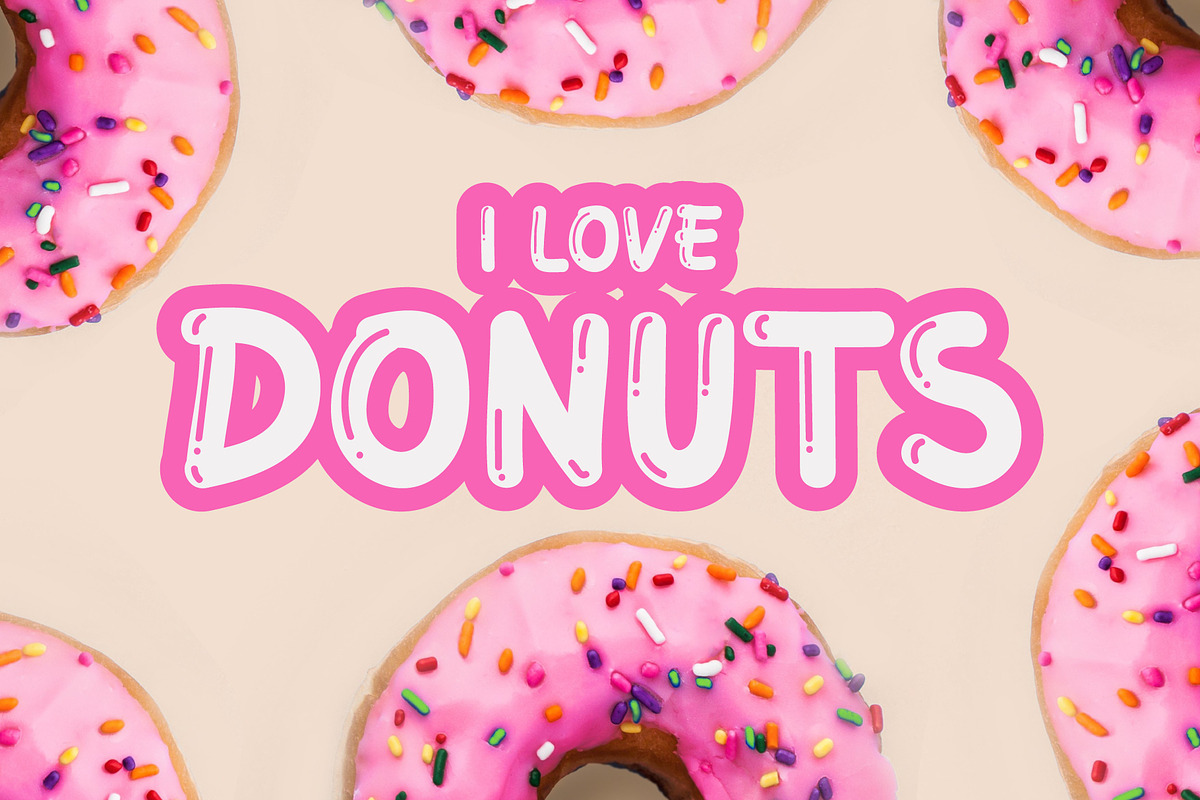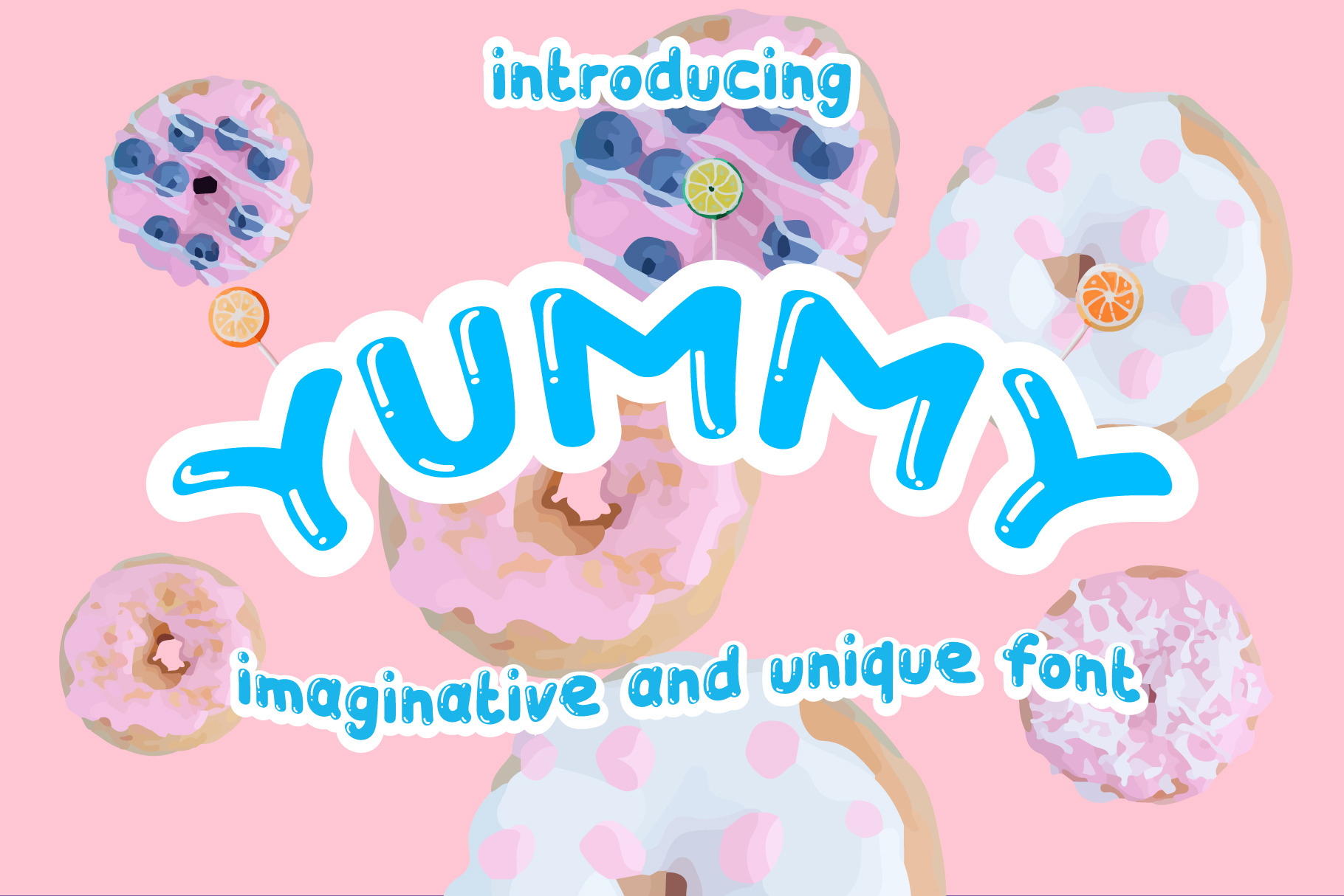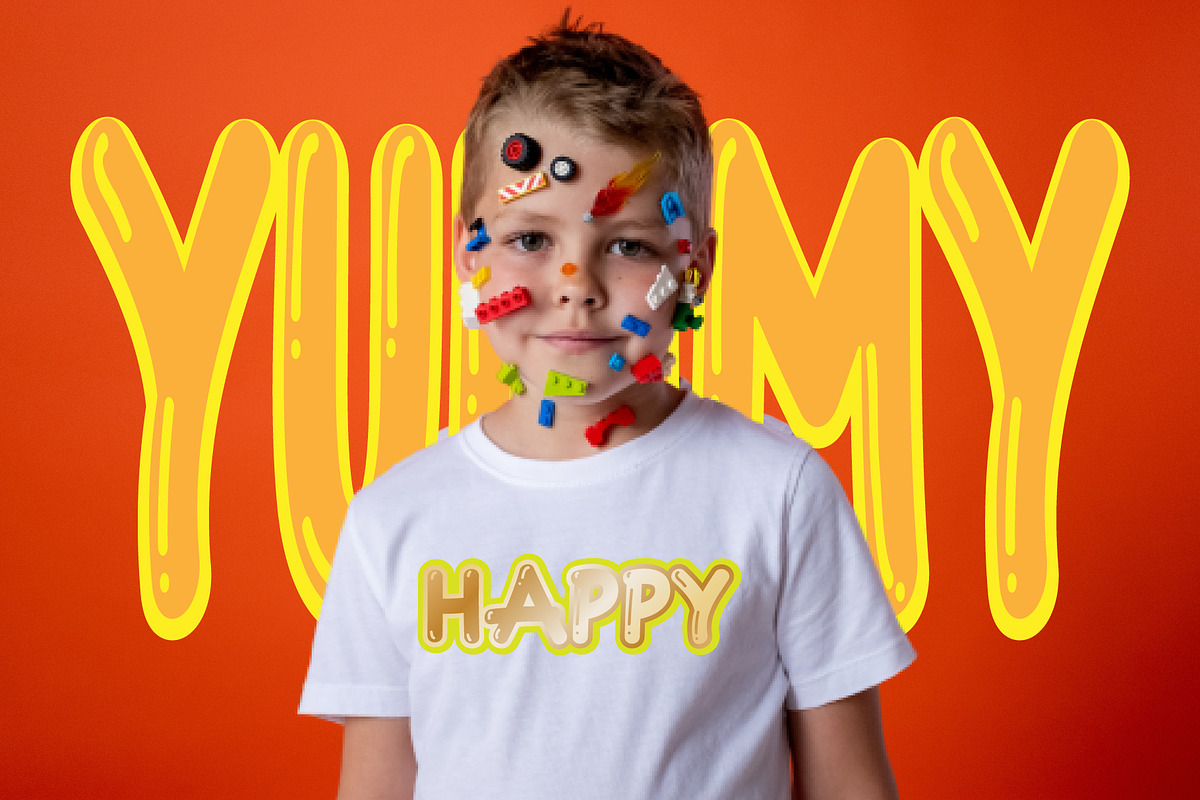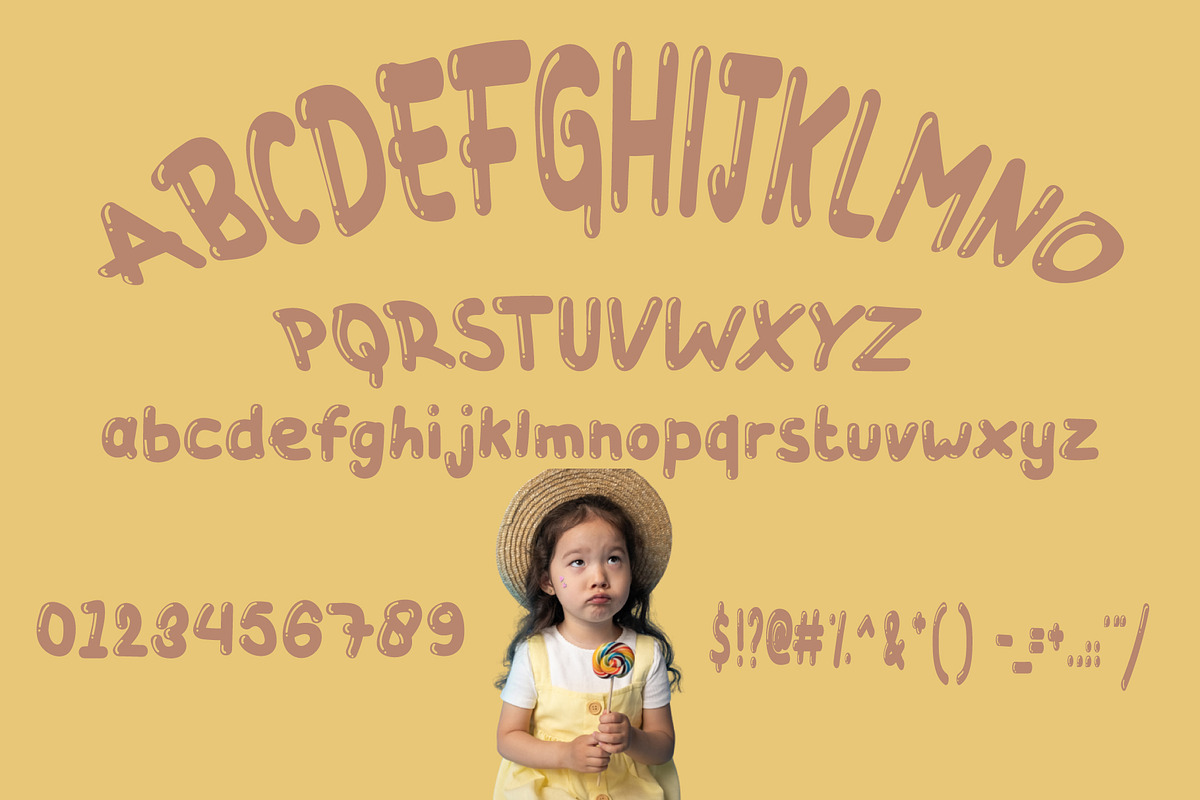
Yummy - Handwritten Font
Introducing Yummy, a cute and unique handwritten style display font. So perfect for you who needs a typeface for logo designs, magazine, social media, brochure, and many more.